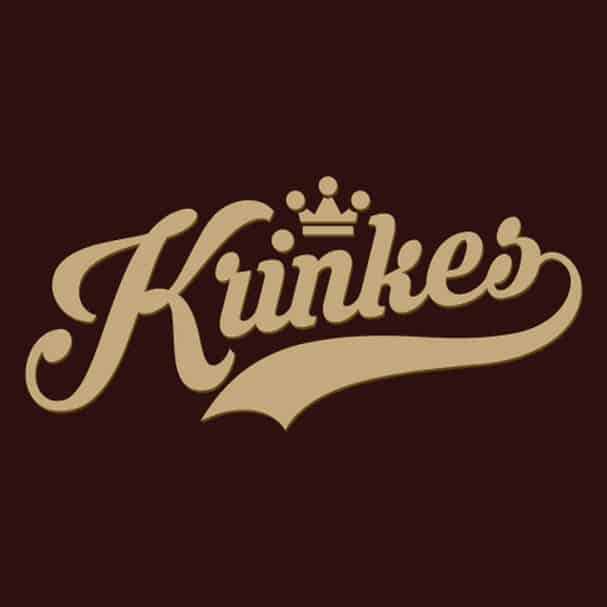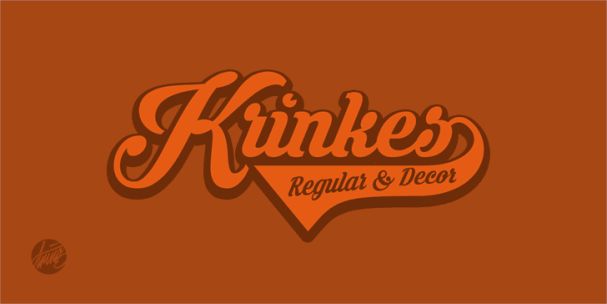
Krinkes Font
Krinkes Font is the main typeface of Photoshop. This is widely famous for its copy and pastes function. This is also known as pixellab font. The italic typeface that looks as if selfie font starts offevolved with a big detail set helping the height of the communications, small caps, pictograms, and bolts.
Along the traces of the quality, its a variety of a particular authority and they may be the usage of it in undertaking one-of-a-type from their layout. So, that you could further use this most elegant typeface for your non-public companies. Krinkes Font Free It definitely works certainly properly with pretty a wonderful deal of any textual content style. It’s miles a font final for playing round with ‚Äì see what works!
Those are loose from pauls circus font hustle perception co. It has a gift-day calligraphy aesthetic this is extensively cutting-edge-day-day. It in addition just like the font, however, it has pinnacle-notch typeface and inclinations. Download The woodlands were created to provide designers an unfastened opportunity in the way to help you gather that lettering take delivery of as real with all and sundry’s love.
It is a version of a similarly historical smooth. It’s furthermore taken into consideration as an american handmade typeface font. You could lease this brilliant font to your organization cause moreover.